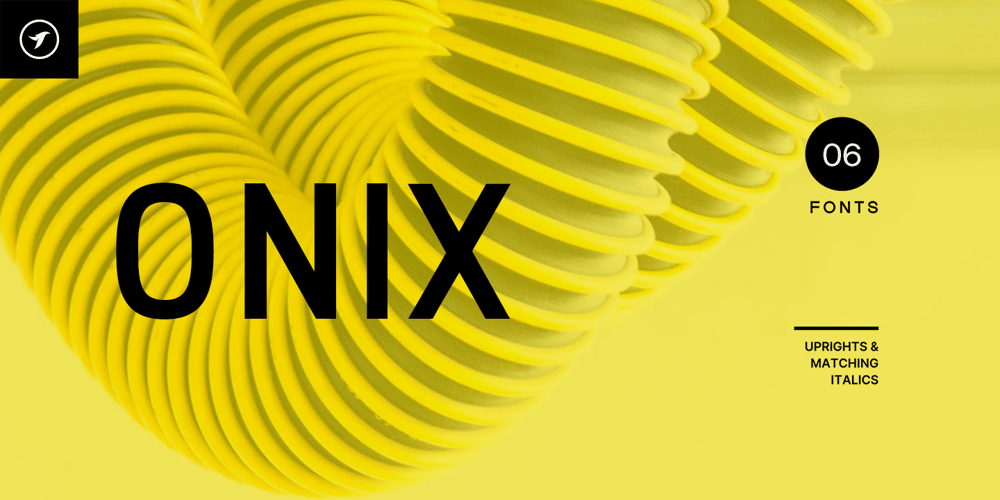
Onix Font Family was designed by Jean Johnson and published by Designova. Onix contains 6 styles and family package options. ONIX is a modern sans-serif typeface with a unique style and identity of its own. The font is inspired by some Western product packaging and lettering styles. ONIX can be best used for presenting amazing headlines, attractive caption text, professional logotypes, product packaging labels, fashion apparel branding, modern website styles and anything you can imagine ๐